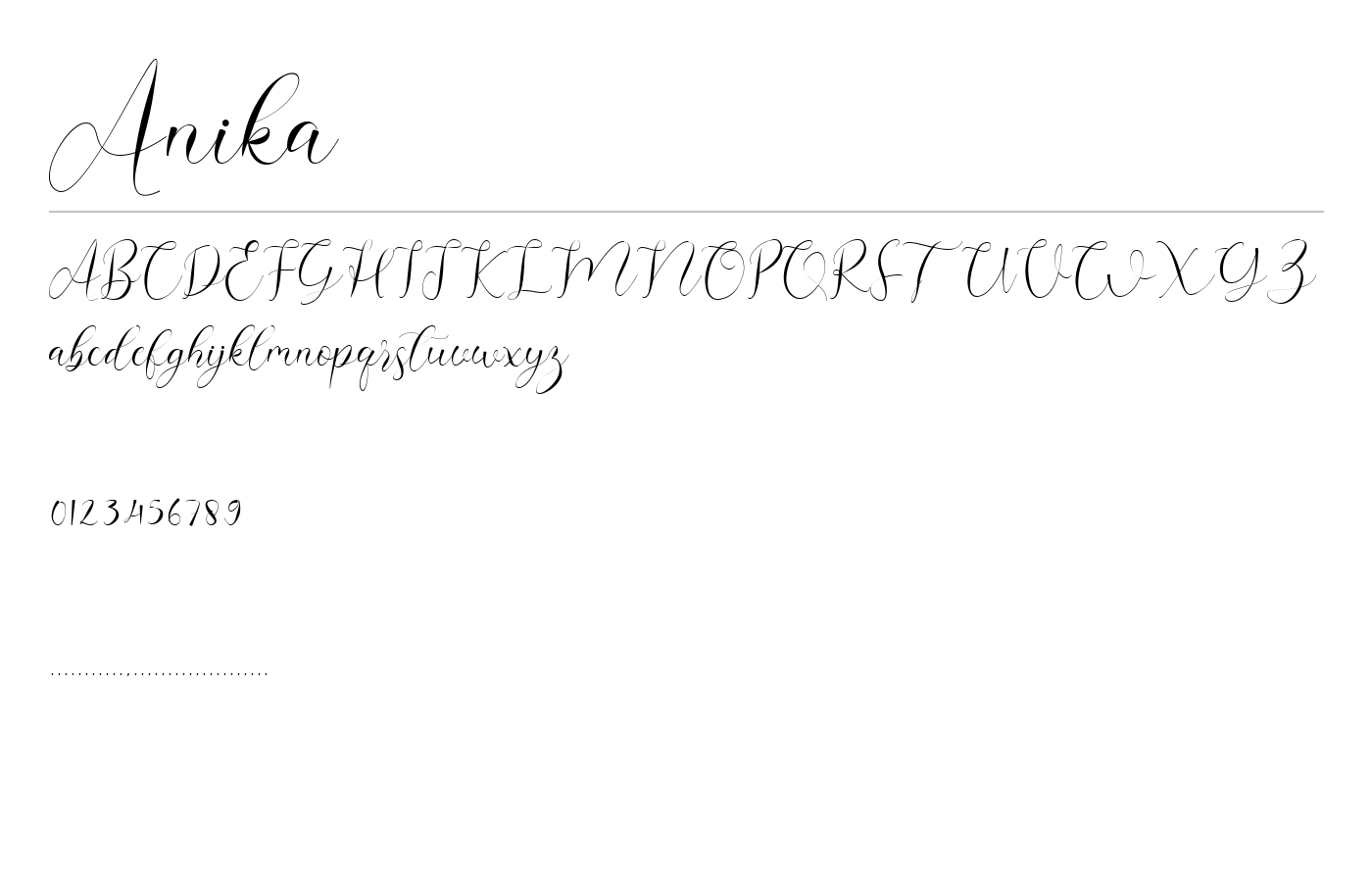
Anika is an elegant script font characterized by its delicate, flowing strokes and high contrast between thick and thin lines. Its graceful, calligraphic style with smooth curves and refined letterforms makes it perfect for invitations, branding, and any design that seeks a sophisticated, romantic feel. This font works beautifully in headlines or logos where a touch of luxury and femininity is desired.
Anika Font
About Anika Font
| Font family | Anika Font |
| Designer | Nabila Graphic Team |